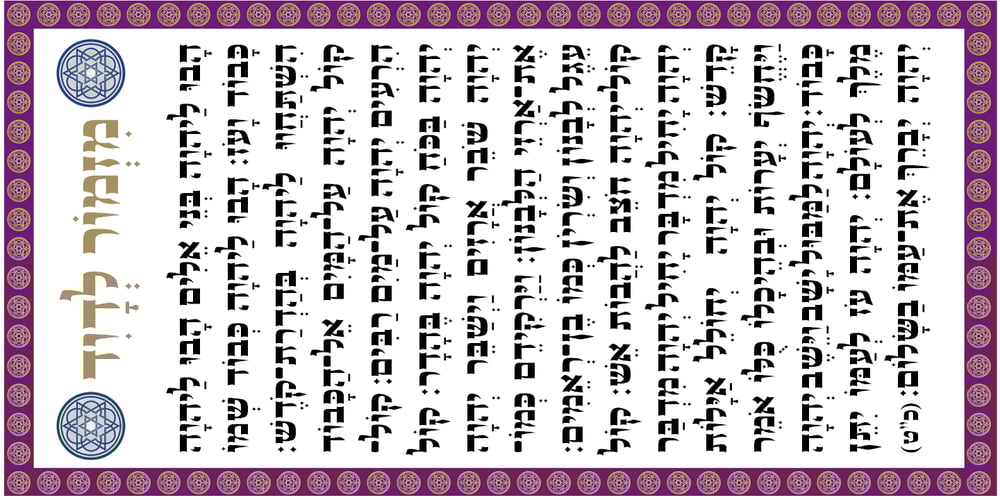
Hebrew Stam Font Family was designed by Sami Artur Mandelbaum and published by Samtype. Hebrew Stam contains 1 styles and family package options. Beautiful Caligraphic font and also readable font.